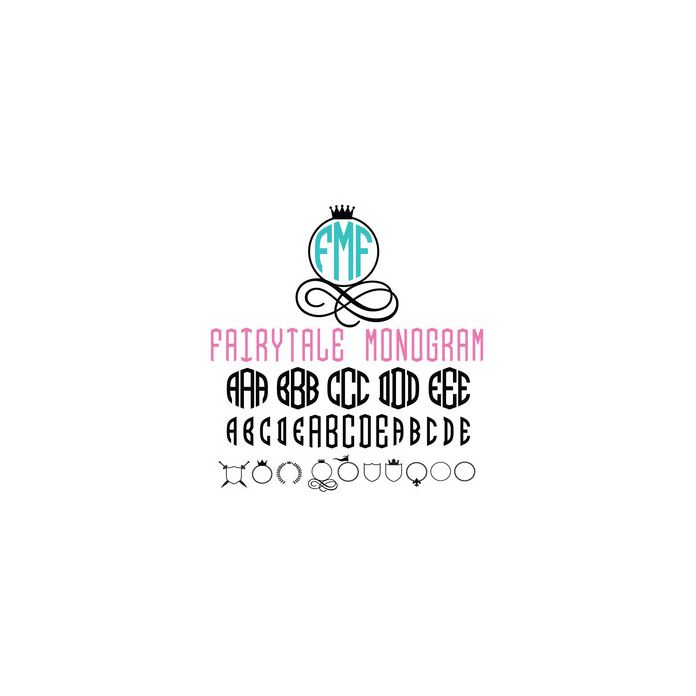
Fairytale Circle Monogram Font with 10 frame styles! All letters can be accessed via glyphs. and are allocated to upper and lowercase with alternates. Frames are allocated number keys.